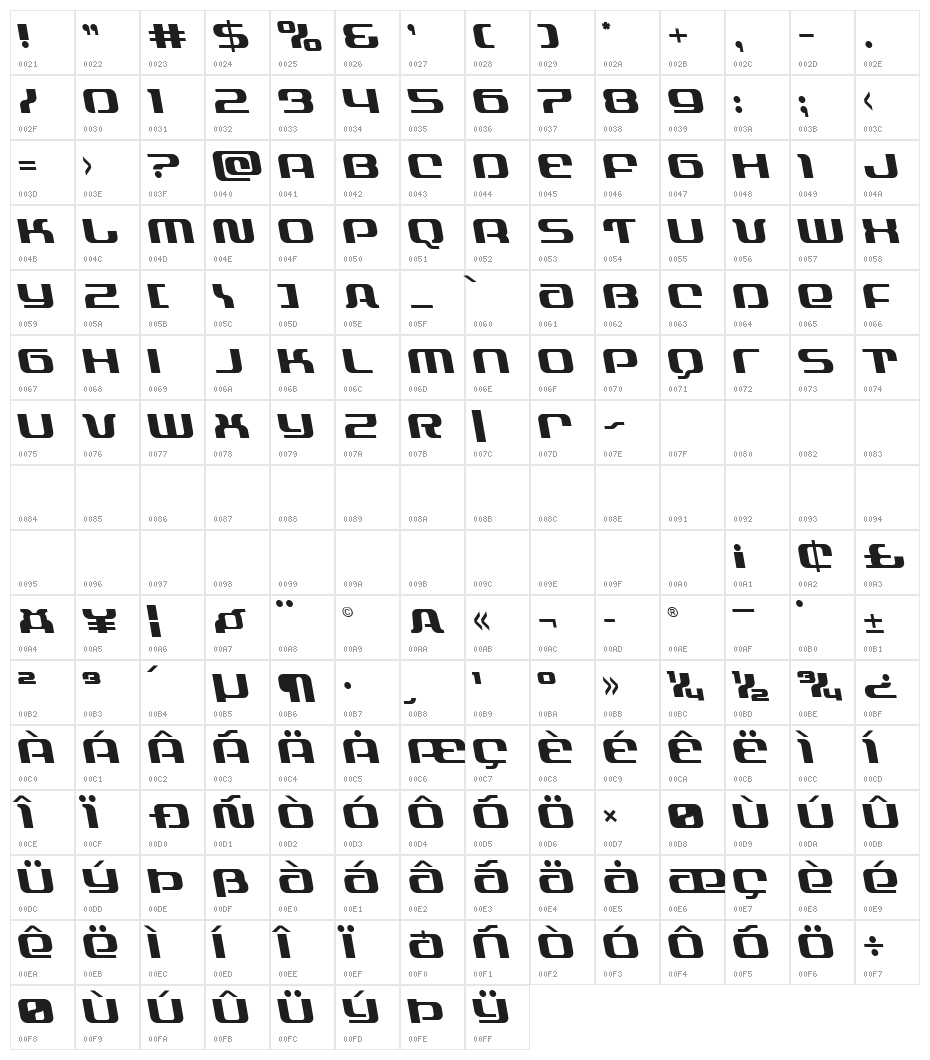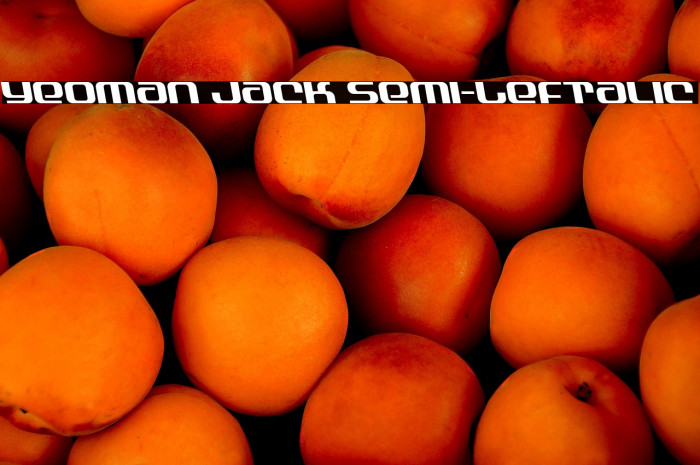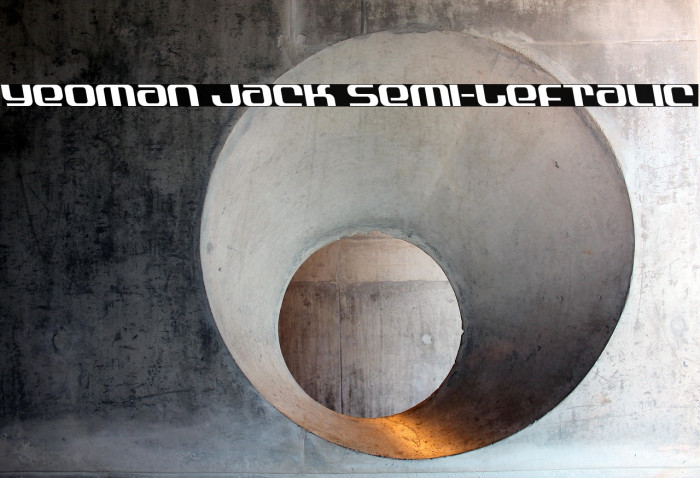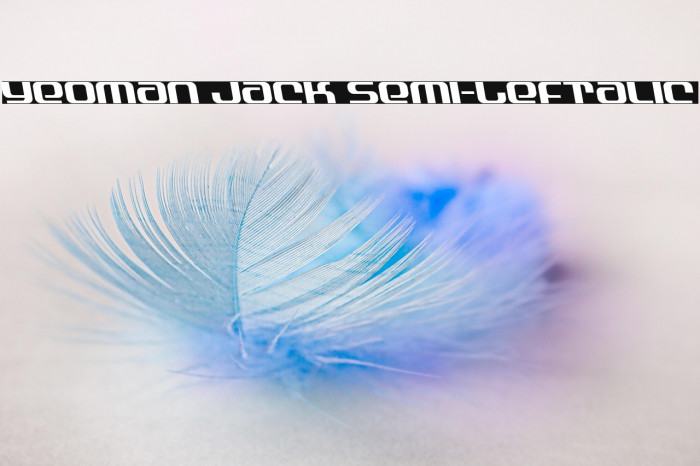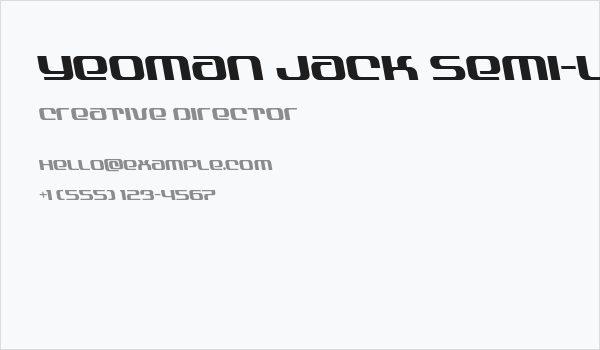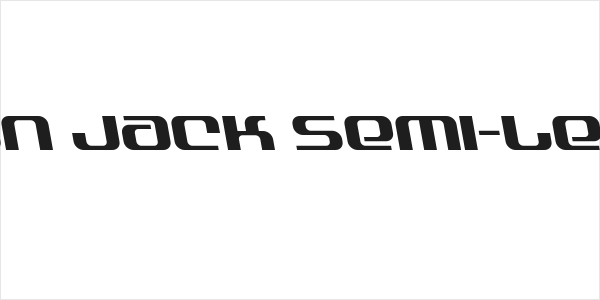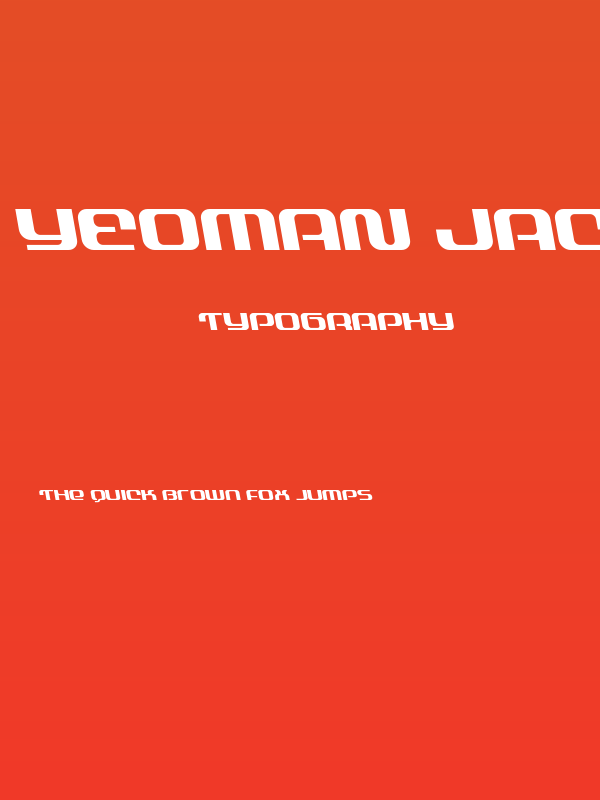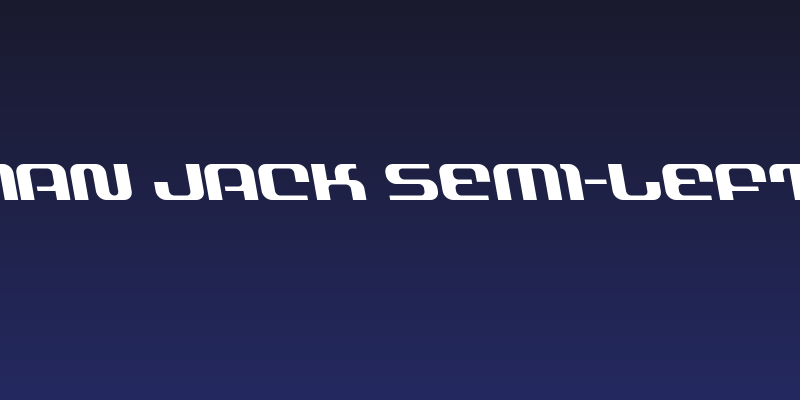
Yeoman Jack Semi-Leftalic Font
Yeoman Jack Semi-Leftalic Description
This font features a bold, futuristic design with a semi-italic slant, giving it a dynamic and forward-moving appearance. The characters are constructed with a geometric style, incorporating sharp angles and clean lines that create a sense of modernity and innovation. The uppercase and lowercase letters maintain a consistent height, enhancing readability while preserving the unique aesthetic. The numbers and special characters follow the same design principles, ensuring uniformity across all glyphs. This font's distinctive style makes it suitable for projects that aim to convey a sense of technology and progress.